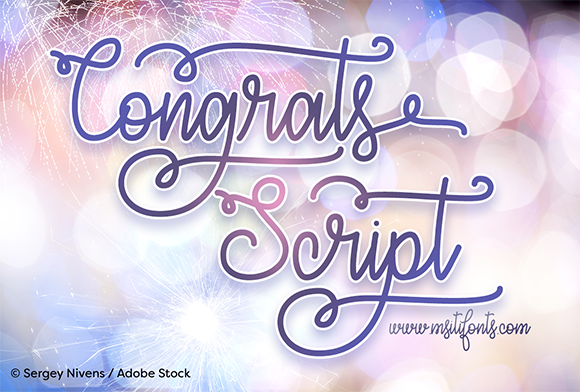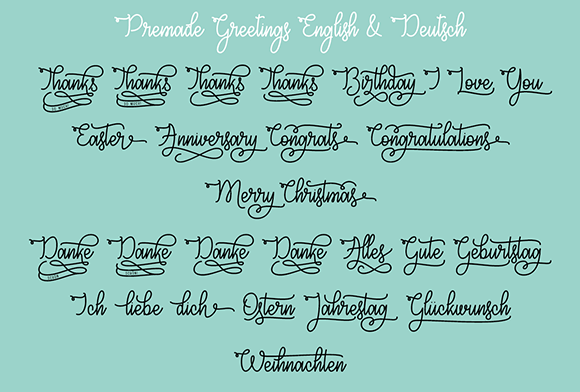
HomeScript FontsCongrats Script Font Script Fonts Congrats Script Font FacebookXPinterestWhatsApp Congrats Script Font Poster 2 About Congrats Script Font Congrats Script is an elegant monoline script that is perfect your craft and design projects! DOWNLOAD NOW People also explored Mountain Font Hannah Thickline Font La Saffina Font Legilature Font Vintage Memory Font Haikey Font Nigel Font Aver Reva Font 280 0 TagsCongrats Script Font Previous articleWyllam FontNext articleHello Heartache Font LEAVE A REPLY Cancel reply Comment: Please enter your comment! Name:* Please enter your name here Email:* You have entered an incorrect email address! Please enter your email address here Website: Save my name, email, and website in this browser for the next time I comment. Personal Use Free Kredit Personal Use Free Read more about this font Adelaide Personal Use Free Read more about this font Lanilla Personal Use Free Read more about this font Winner Personal Use Free Read more about this font BLOG Modern Sans-Serif Fonts That Brands Love in 2025 In 2025, modern sans-serif fonts remain a top choice for brands looking to project clarity, professionalism, and... Free Fonts Risk: Why Free Fonts Can Be Dangerous for Designers How to Cut Any Font on Cricut: Convert a Font to SVG (Free) Using Fonts in Digital Marketing: Tips to Strengthen Your Brand Identity